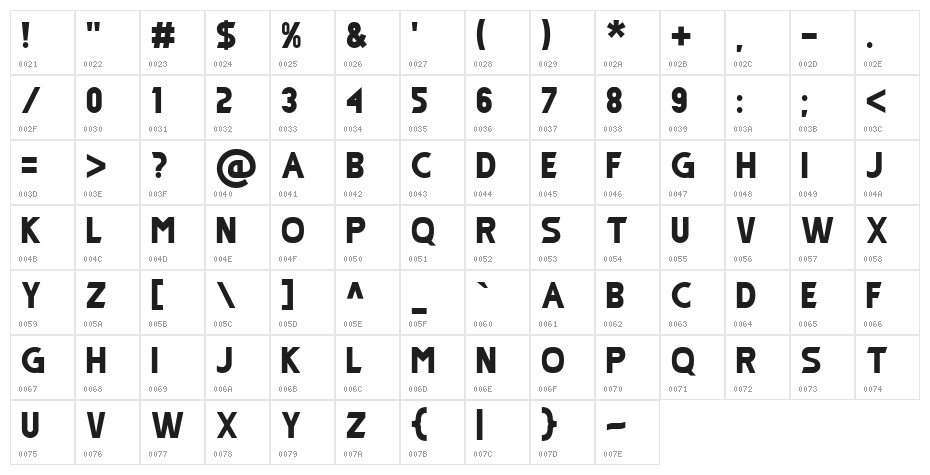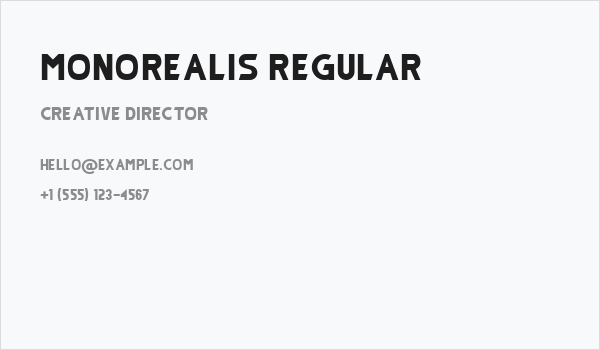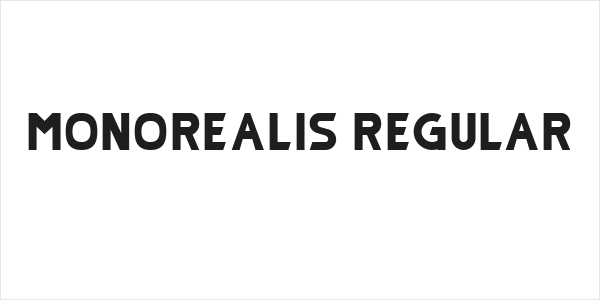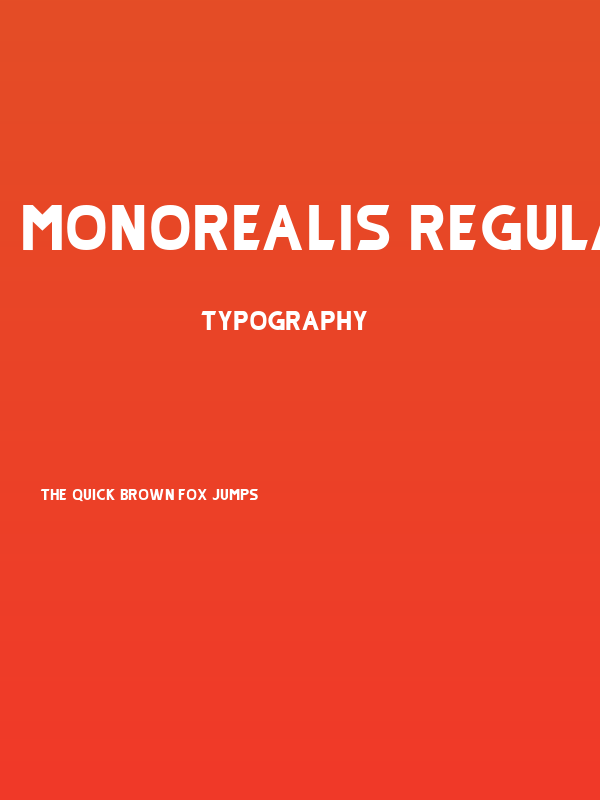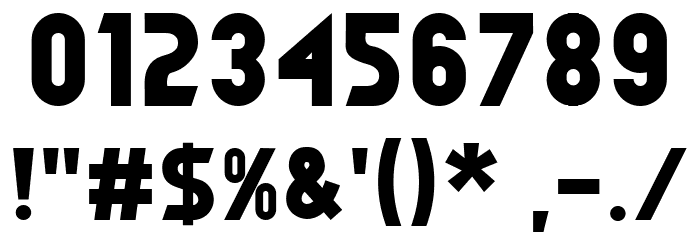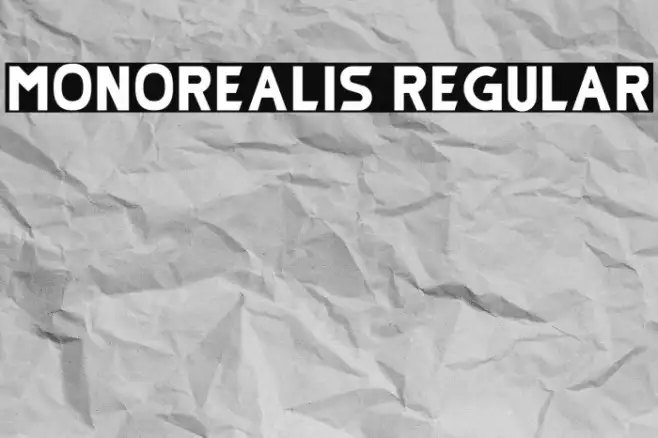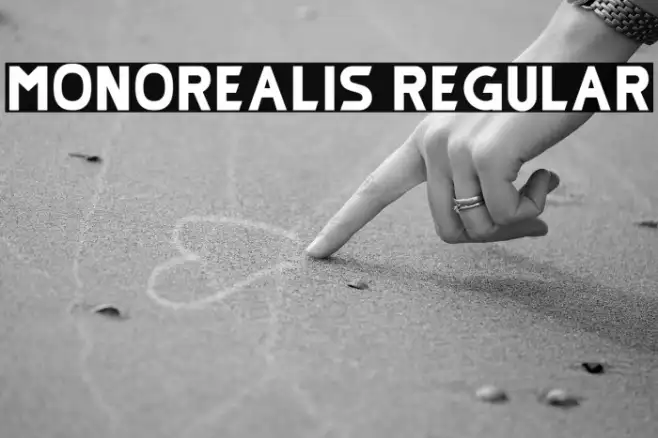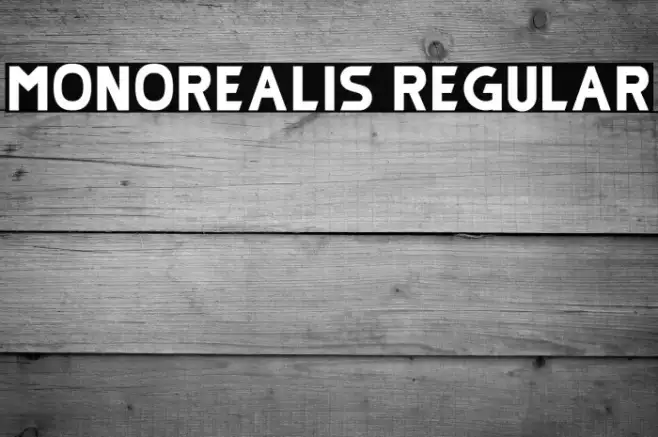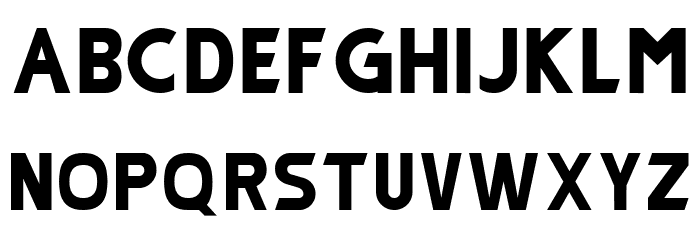
Monorealis Regular Font
Monorealis Regular Description
This font features a bold and geometric design, characterized by its strong, clean lines and uniform stroke width. The uppercase and lowercase letters maintain a consistent height, creating a cohesive and balanced appearance. The numerals are equally bold, ensuring readability and impact. Special characters are designed with the same attention to detail, providing a comprehensive set for various uses. The overall style is modern and assertive, making it suitable for projects that require a strong visual presence.
| Proposed Projects | Ideal for branding, headlines, posters, and digital media where a strong, modern aesthetic is desired. |